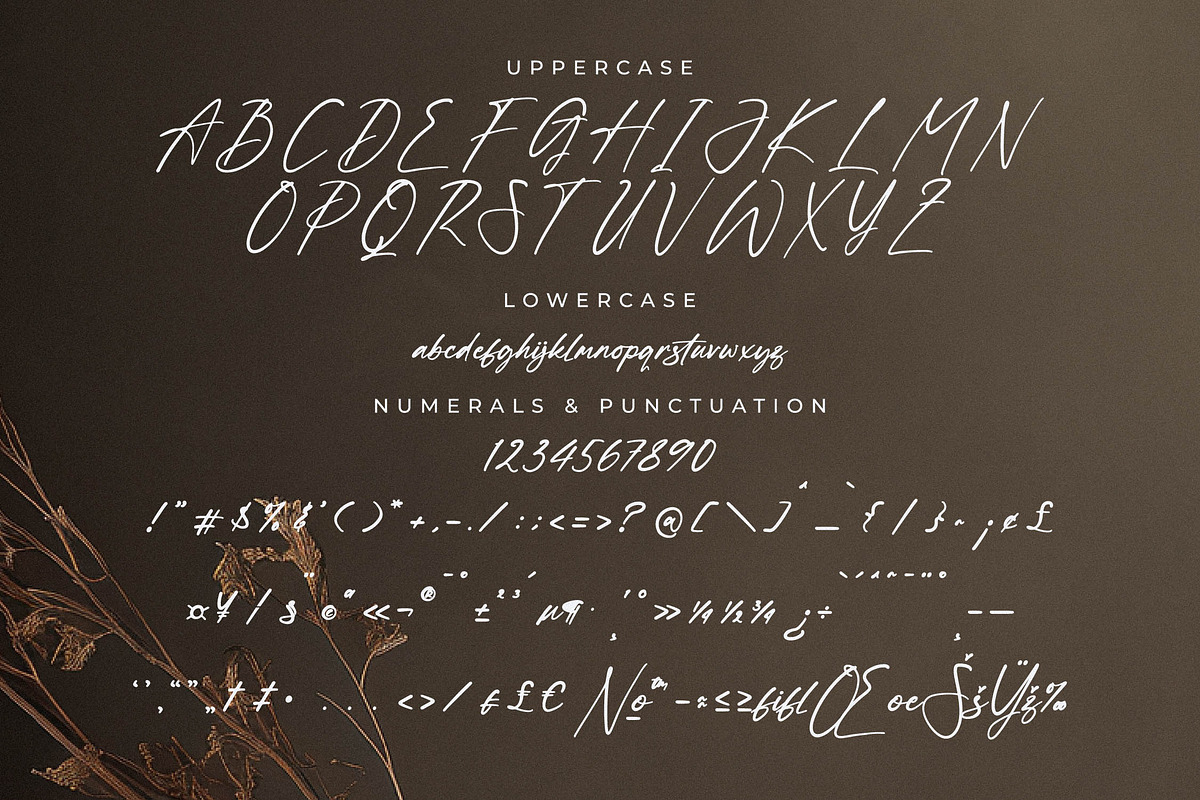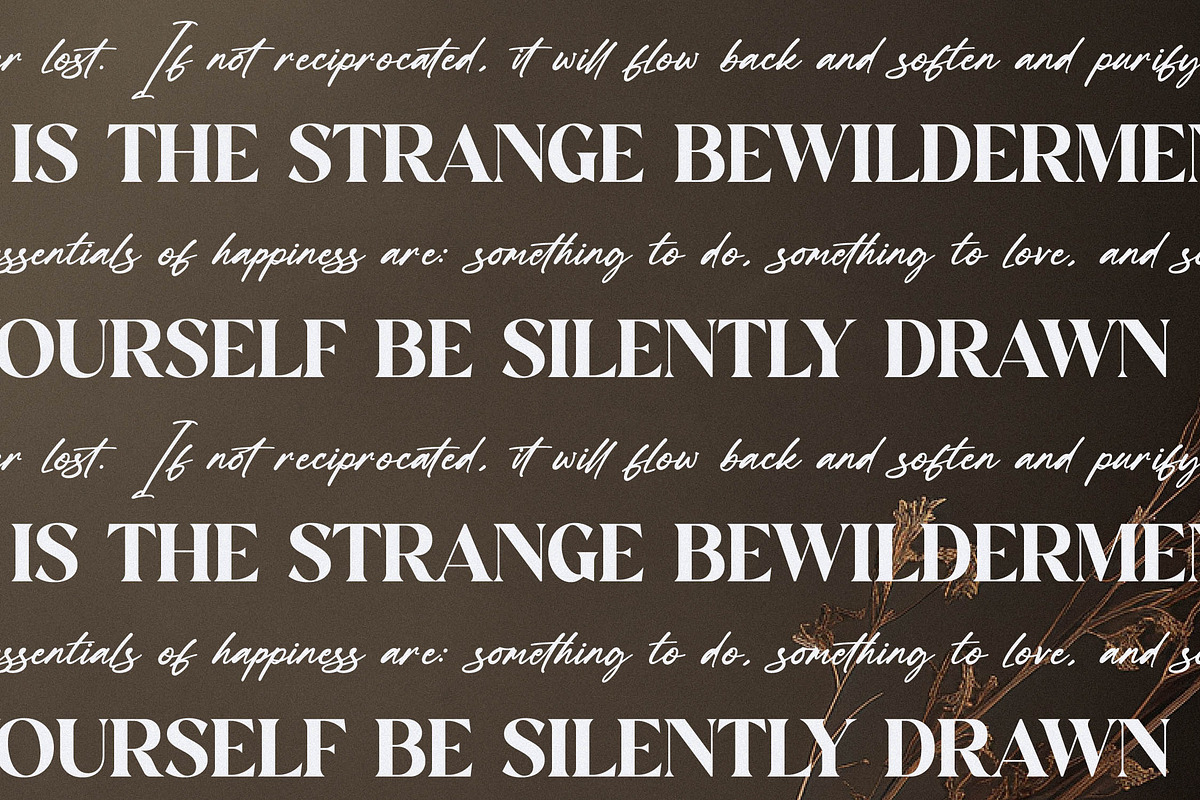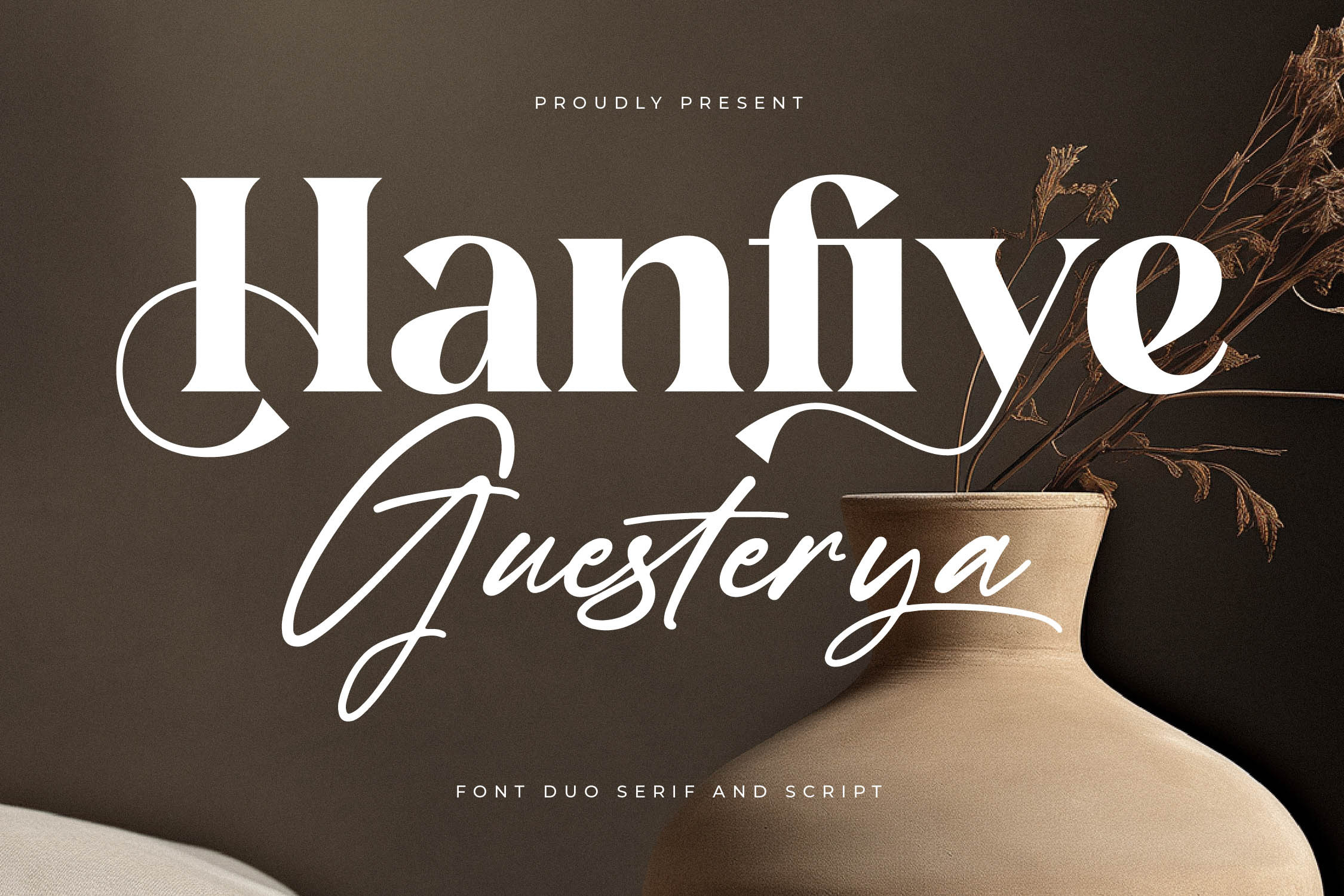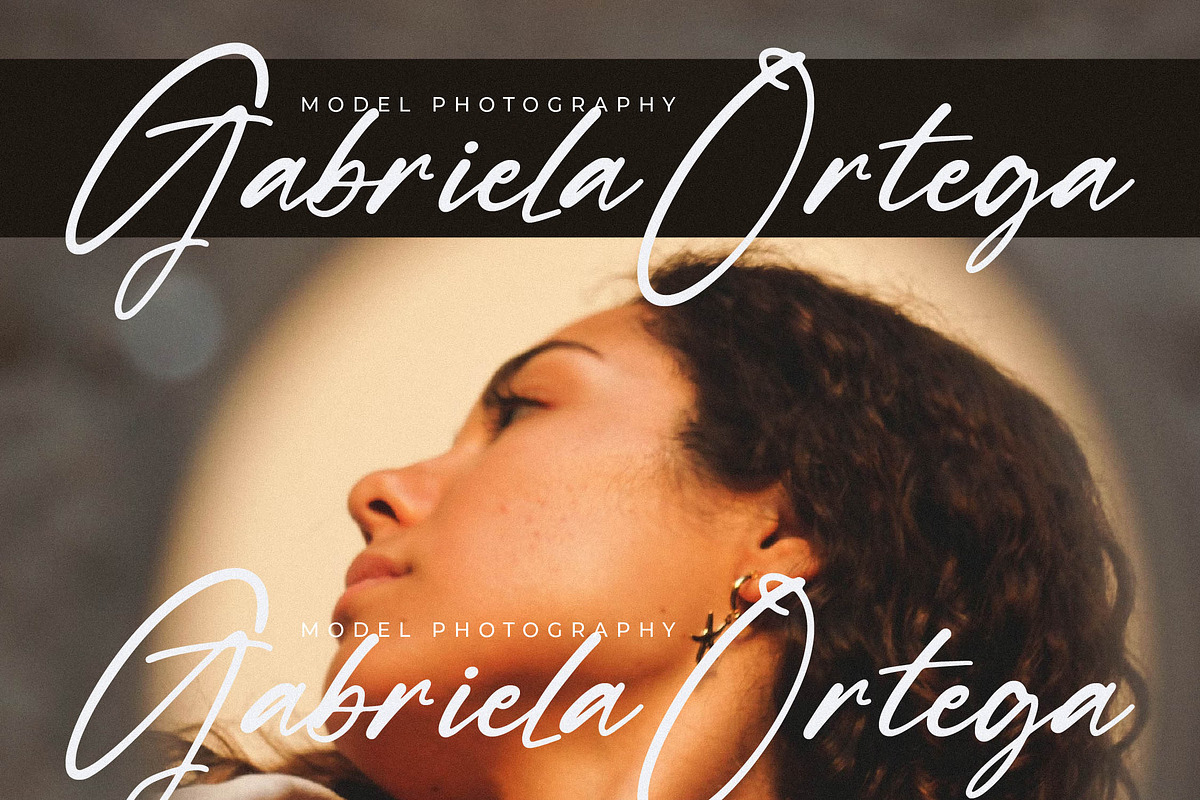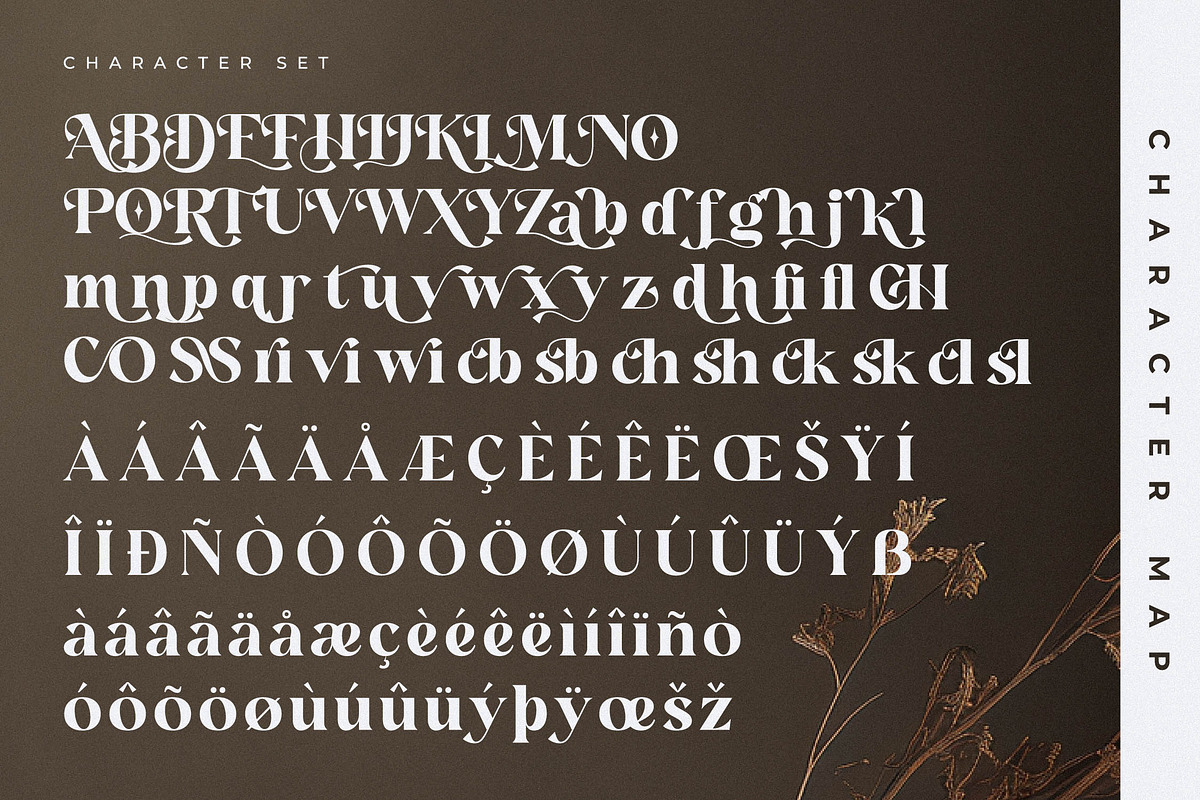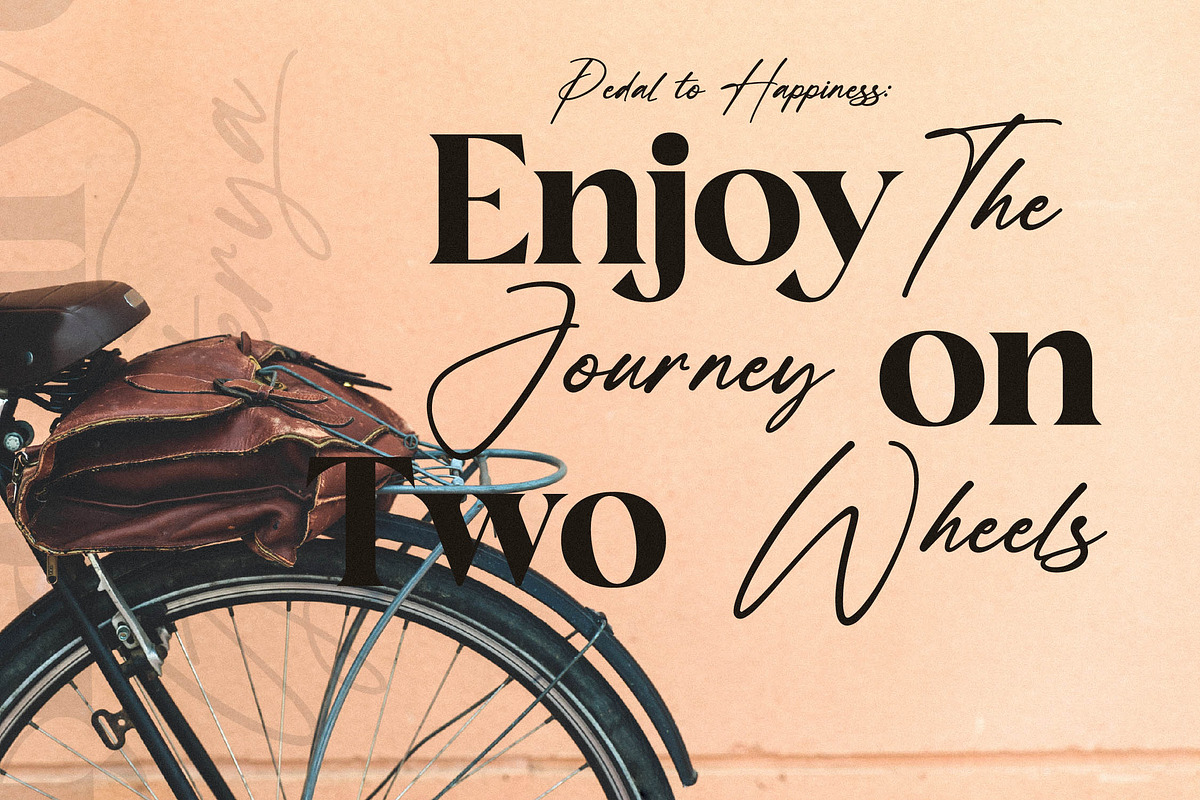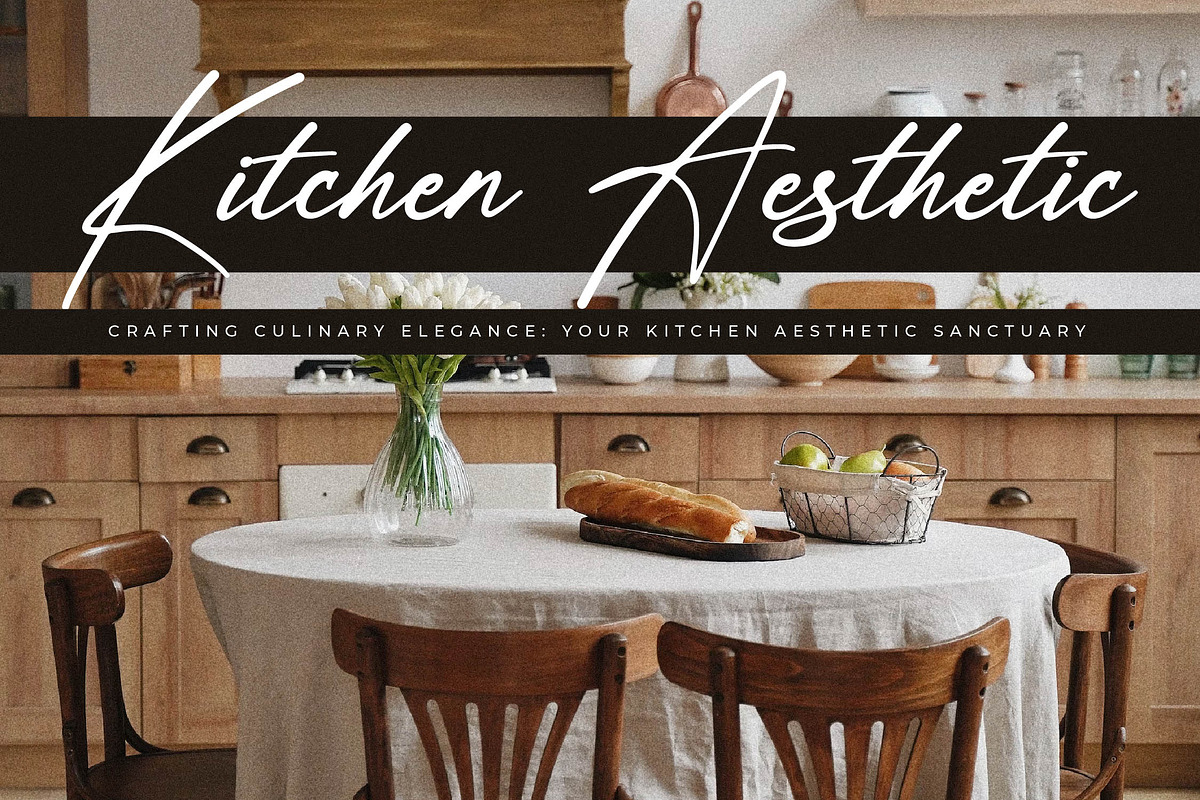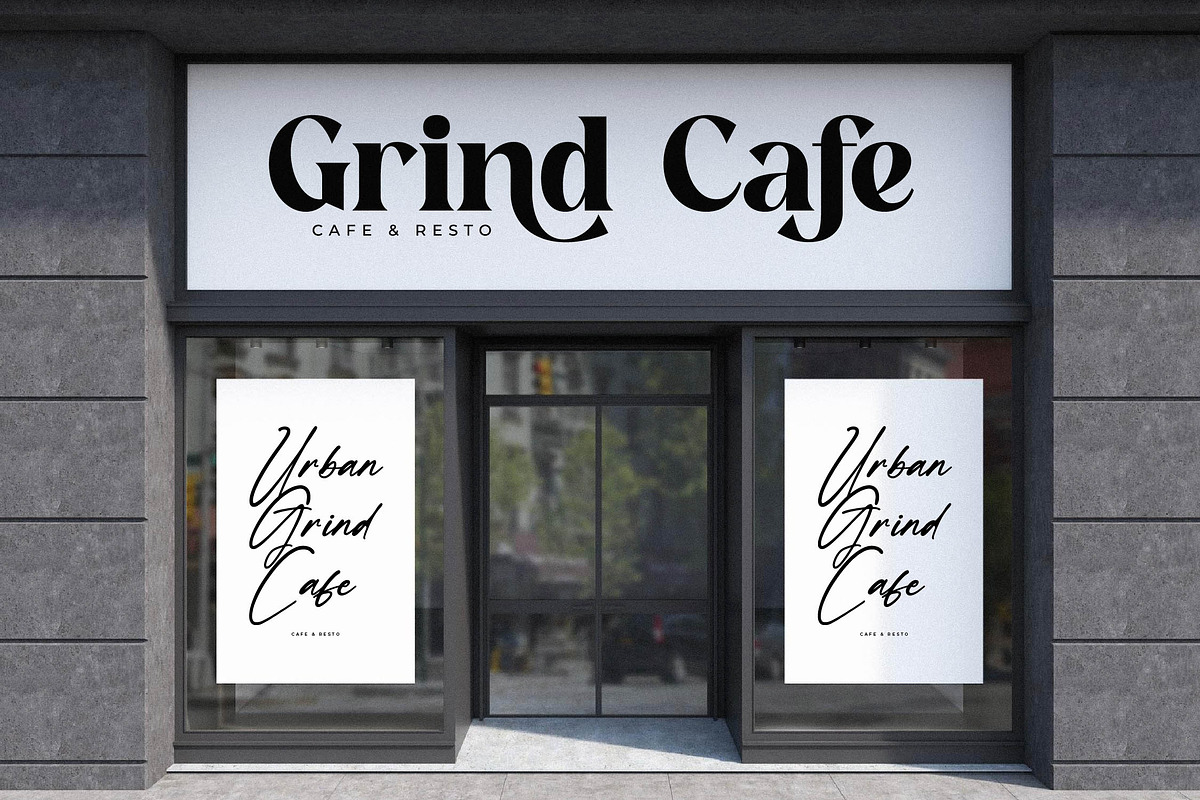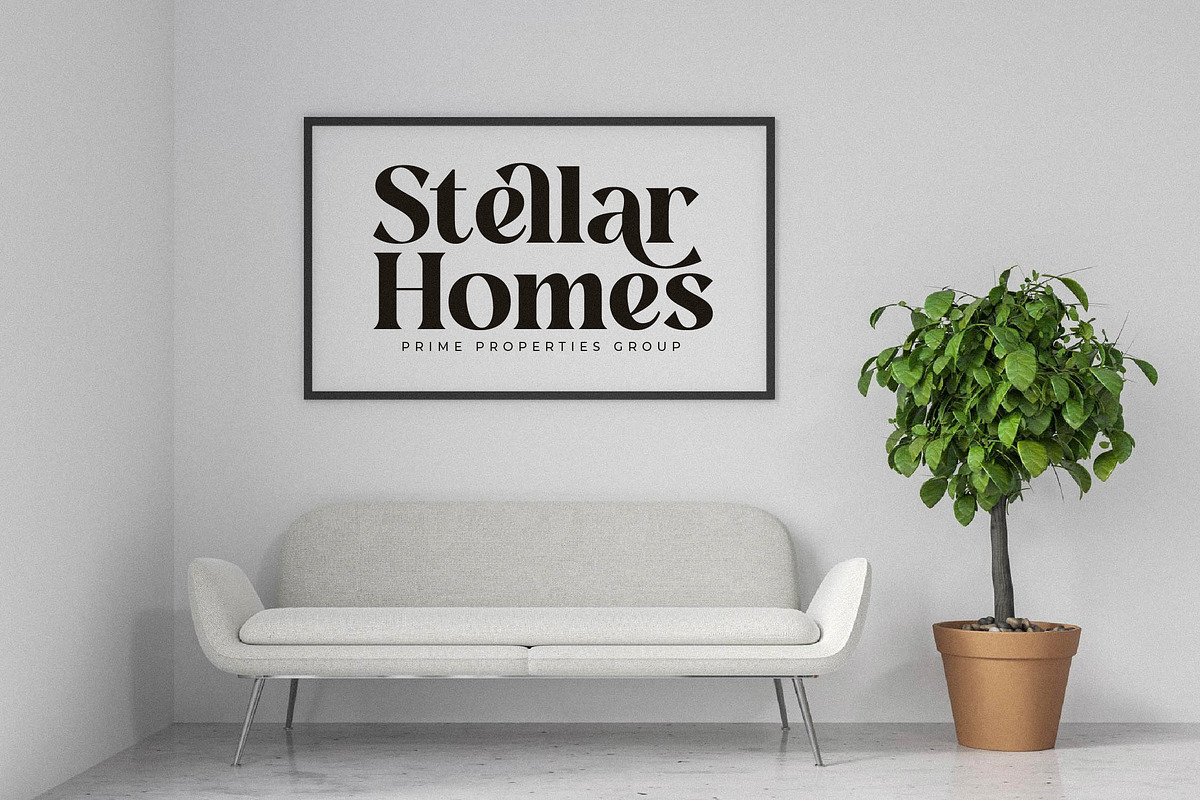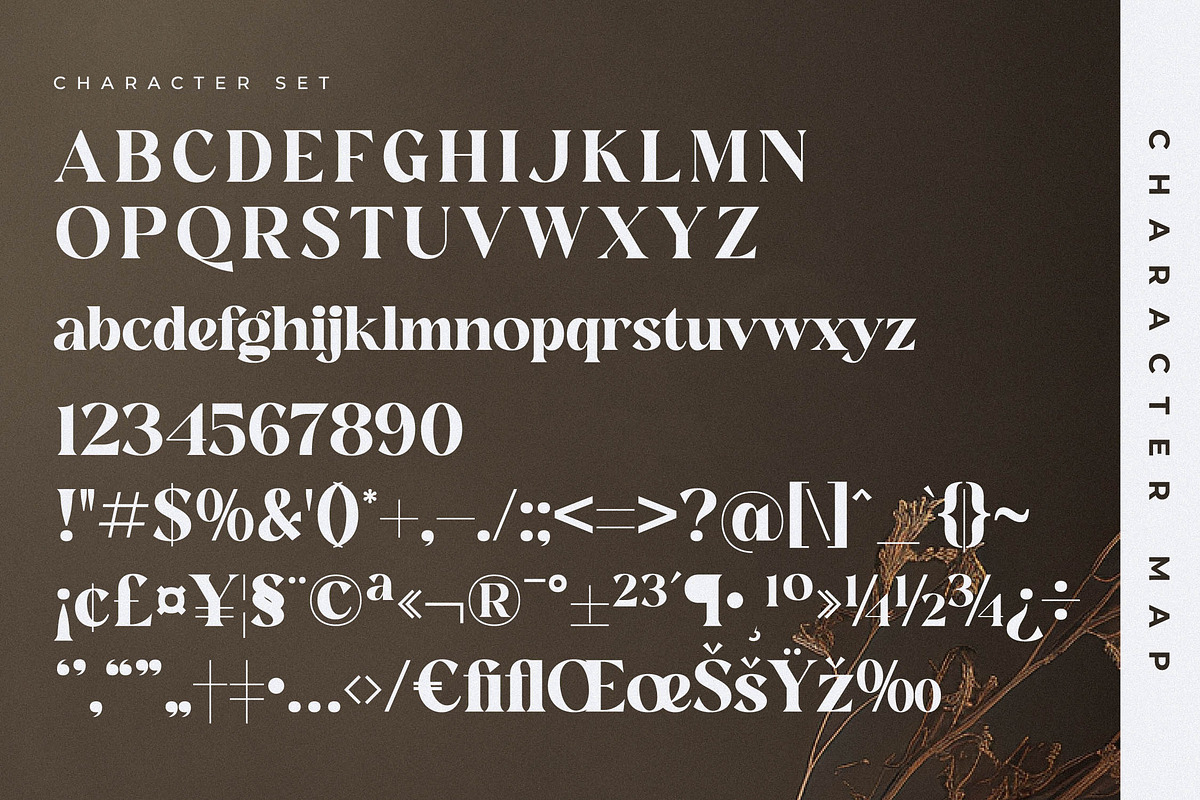
Hanfiye Guesterya Font Duo
Proudly present Hanfiye Guesterya Font Duo , created by Storytype, A serif and script typeface that has own unique style & modern look. This typeface is perfect for an elegant & luxury logo, book or movie title design, fashion brand, magazine, clothes, lettering, quotes, and so much more.